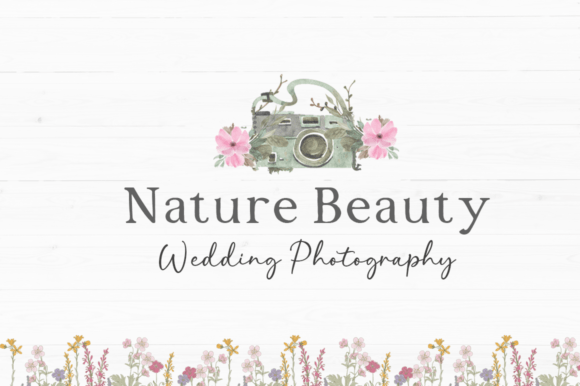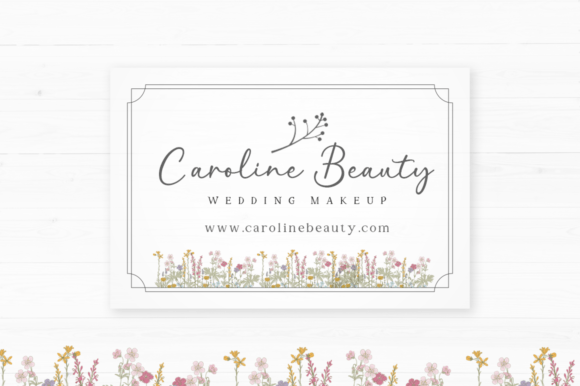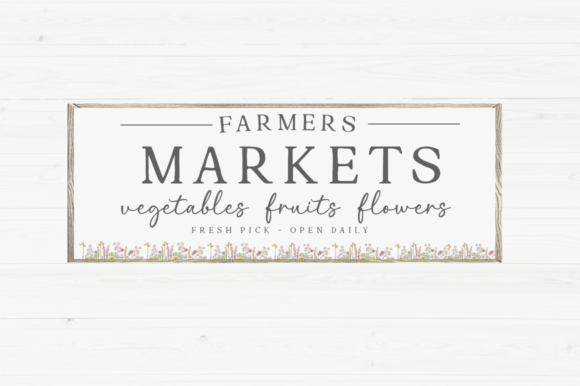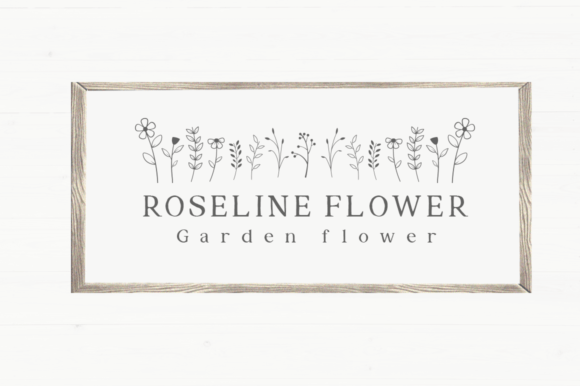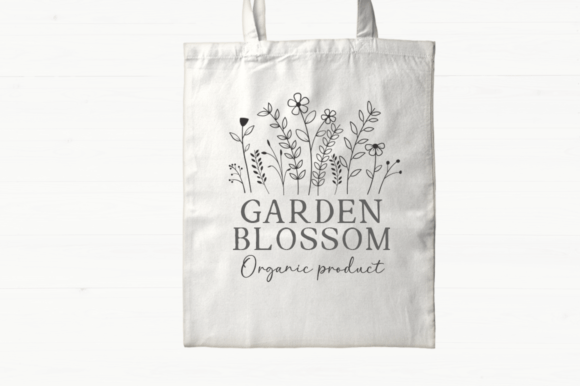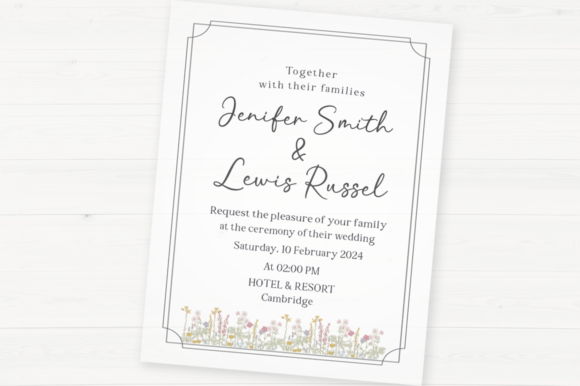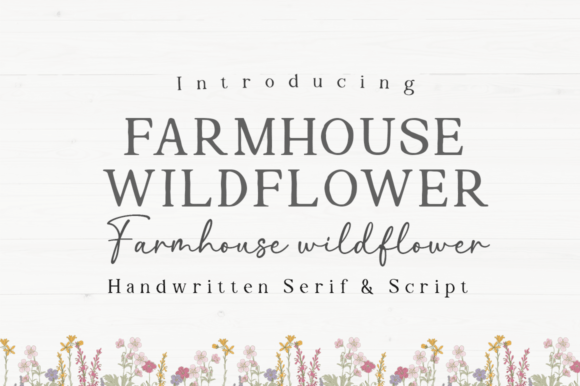
Introducing the Charming Farmhouse Wildflower Font
Are you a designer, crafter, or DIY enthusiast looking for a unique and charming font to elevate your creative projects? Look no further than the Farmhouse Wildflower Font, a beautiful handwritten serif and script font that embodies the rustic charm of the countryside. This versatile font bundle includes organic imperfect variations, bonus wildflower bundles, and vector files in EPS and SVG formats, making it perfect for a wide range of applications.
What is the Farmhouse Wildflower Font?
The Farmhouse Wildflower Font is a handcrafted font designed to capture the essence of wildflowers and the rustic charm of farmhouse decor. This font bundle features:
- Handwritten serif and script fonts with a personal touch
- Organic imperfect variations to add a touch of whimsy
Perfect for Farmhouse Decor and Beyond
The Farmhouse Wildflower Font is ideal for a variety of creative projects, including:
- Farmhouse decor: Add a touch of rustic charm to your home decor with this beautiful font
- Quotes and invitations: Create personalized quotes and invitations for special occasions
- Personalized products: Design unique and thoughtful gifts, such as customized t-shirts, mugs, and more
- Brand logos: Establish your brand identity with a custom logo featuring this charming font
- T-shirts and apparel: Design eye-catching apparel with this beautiful font
- Cricut and cutting machines: Use this font with your Cricut or cutting machine to create custom vinyl signs, decals, and more
The Farmhouse Wildflower Font offers a range of benefits and features, including:
Design and Crafting Possibilities
The Farmhouse Wildflower Font offers endless possibilities for designers and crafters, including:
- Custom signs and decor: Create personalized signs, banners, and decor for your home or business
- Paper crafting: Use this font to create beautiful paper crafts, such as cards, invitations, and scrapbook pages
- Digital design: Use this font in digital design projects, such as social media graphics, blog posts, and more
- Product design: Design unique and thoughtful products, such as customized mugs, t-shirts, and more
The Farmhouse Wildflower Font is a versatile and charming font bundle that offers endless possibilities for designers and crafters. With its handwritten serif and script fonts, organic imperfect variations, and bonus wildflower bundles, this font is perfect for a wide range of creative projects. Whether you’re looking to create farmhouse decor, personalized products, or custom logos, this font is sure to inspire your creativity.